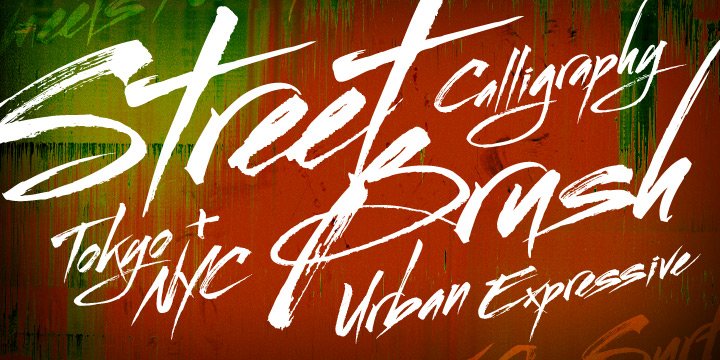
Streetbrush Brush Font
When I was in high school, I would wreck my notebooks with multiple layers of graffiti tags, which would start in the margins, and then creep in to cover the entire page.
I developed a sensibility towards a very fast, expressive use of my hand, which later easily and naturally translated into brush. I used this style typographically on several projects throughout the years, and even turned it into a signature illustration style.
Recently, by repeating letters hundreds of times each with brush on paper, this ad-hoc brush style became Streetbrush.